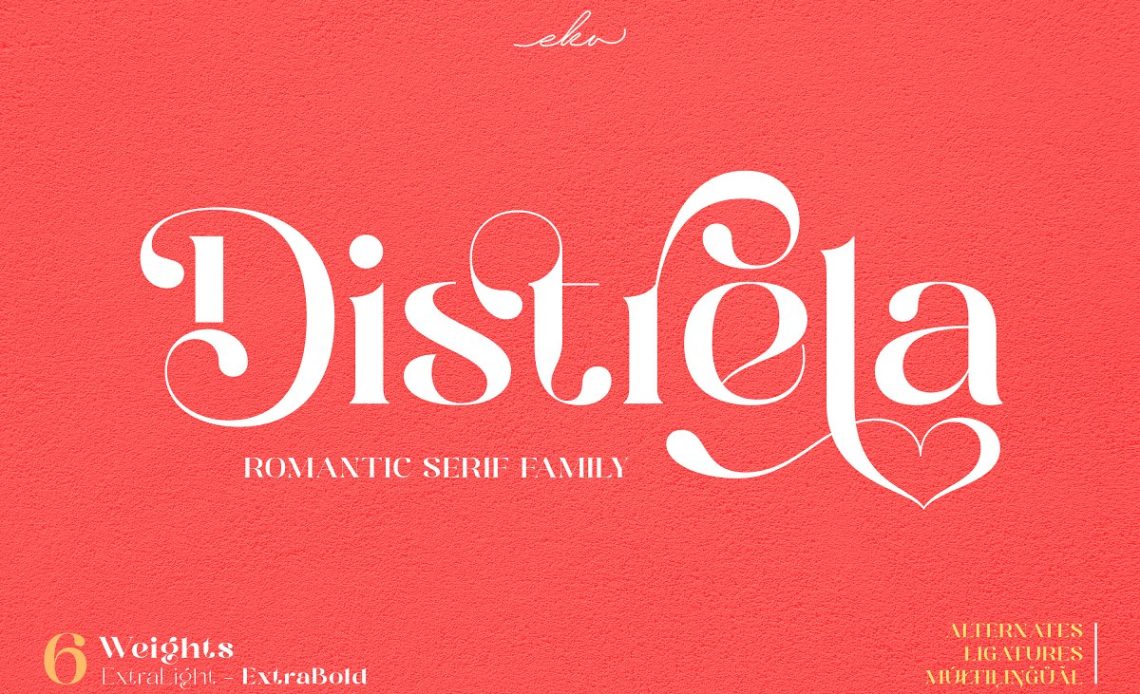
Are you searching for the perfect font to elevate your wedding vows and capture the essence of your love story? Look no further than Distrela, the romantic serif font created by Eka Hermawan.
Distrela offers a wide range of options with its 6 weights, from ExtraLight to ExtraBold, each designed with a romantic theme to add a touch of elegance and beauty to any design project. With its plethora of alternates and ligatures characters, Distrela provides endless possibilities for customization, making it the best font for wedding vows, logo design, branding, posters, magazines, labels, merchandise, invitations, presentations, advertising, and more.
But that's not all! Distrela also boasts OpenType support, making it easy and playful to use with its ligatures and alternates options. Plus, it has multilingual support and is PUA encoded, ensuring that it can be used across various platforms and devices without any issues.